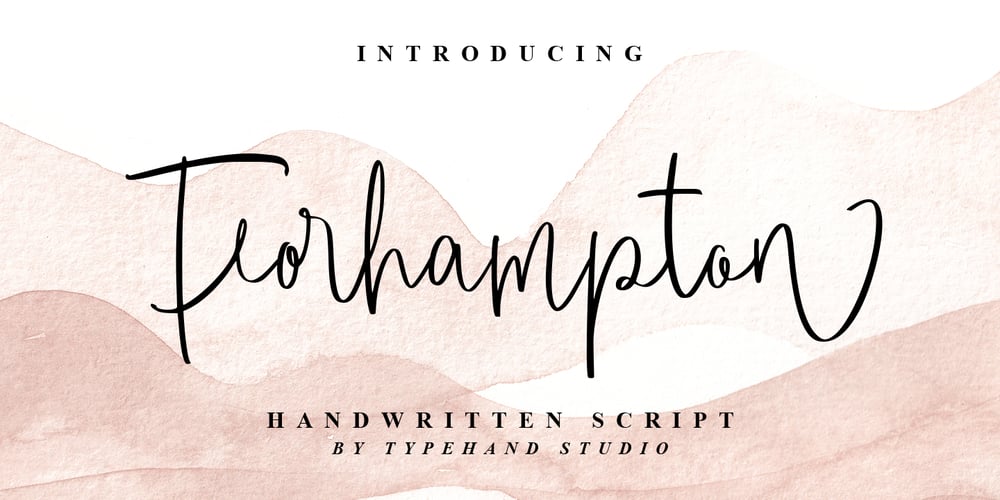
Forhampton Font Family was designed by Yanuar Adi and published by Typehand Studio. Forhampton contains 1 styles and family package options. Forhampton is Handwritten font with unique brush style, perfect for adding that natural-looking handwritten touch to your designsForhampton has ligatures, alternates, and supports 68++ Multilingual. Forhampton is Handwritten style that suitable for various project, like branding, invitation, merchandise, website, advertisement, magazine, and more